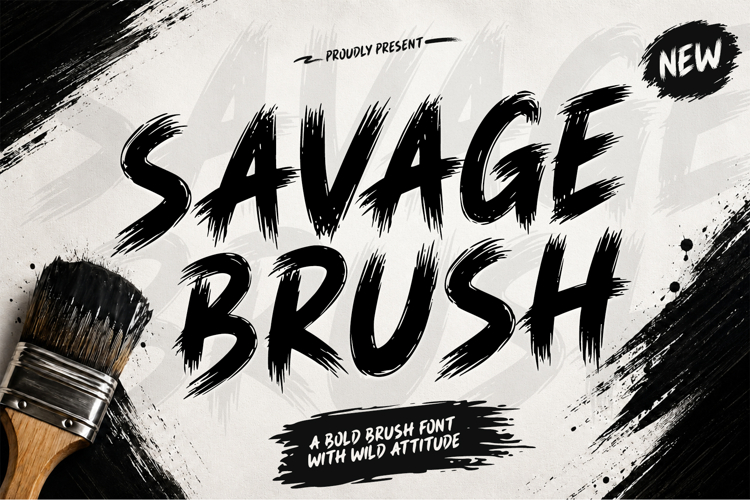
Savage Brush Font
Savage Brush
A Bold Brush Font with Wild Attitude
Unleash the raw energy of handcrafted brush strokes with Savage Brush, a bold display font designed to make every design impossible to ignore. Built with expressive dry-brush textures, dynamic strokes, and an authentic hand-painted feel, this typeface captures the spirit of urban art, street culture, and fearless creativity.
Every character is crafted with natural brush movement, creating a powerful visual rhythm that feels spontaneous, energetic, and full of personality. Whether used for bold headlines or eye-catching branding, Savage Brush delivers striking impact while preserving excellent readability.